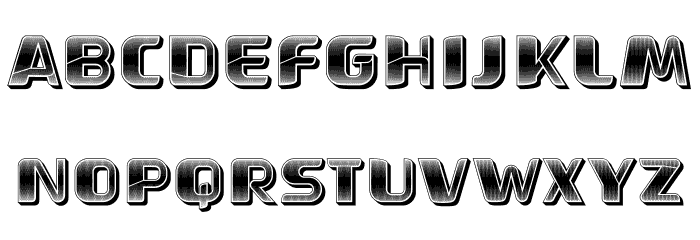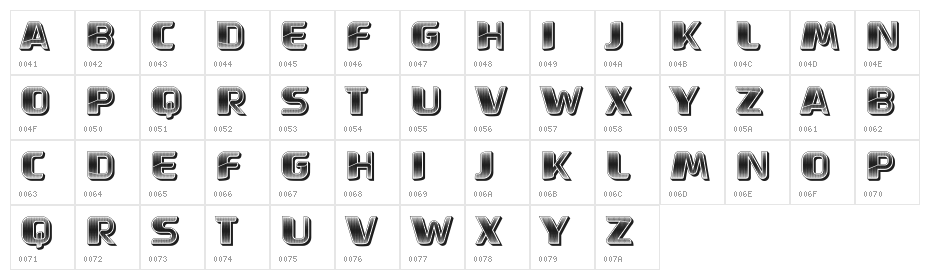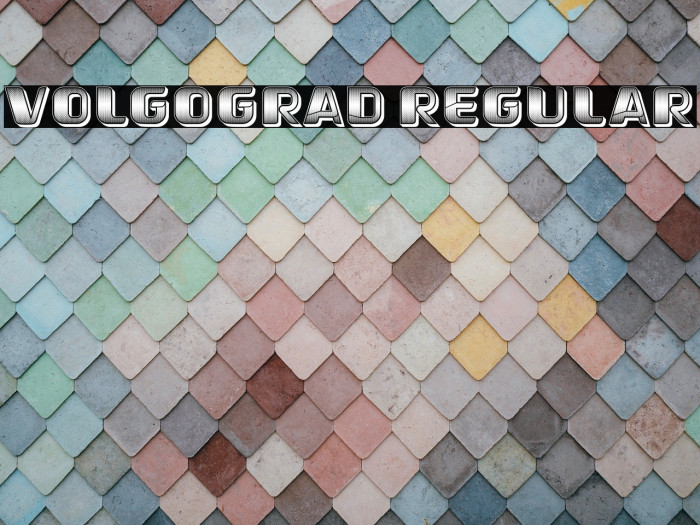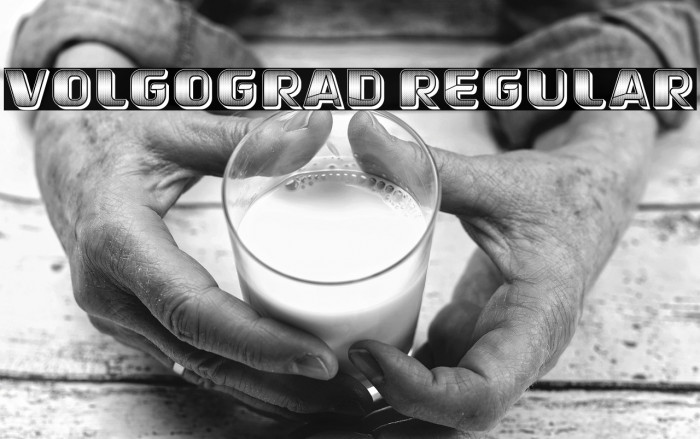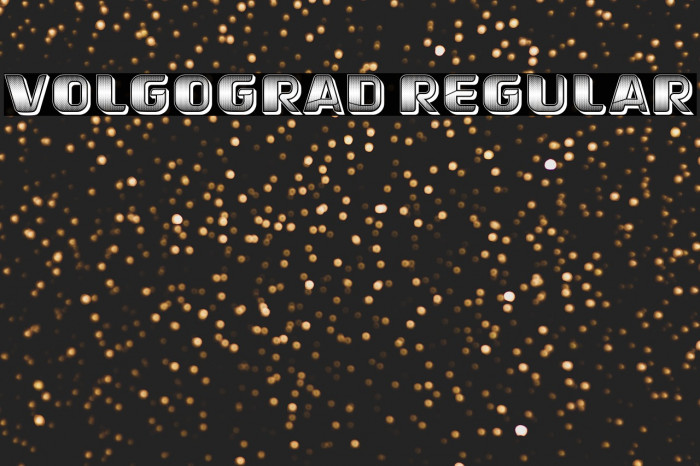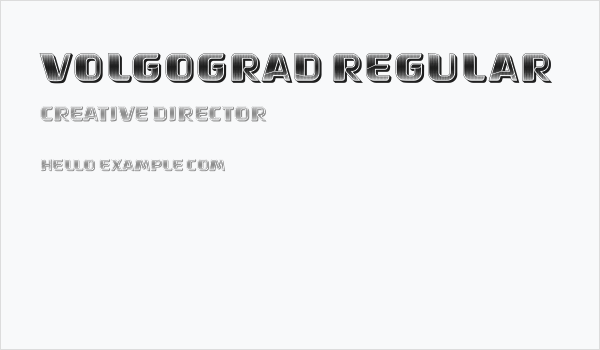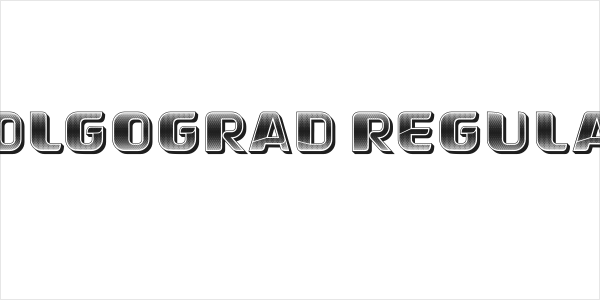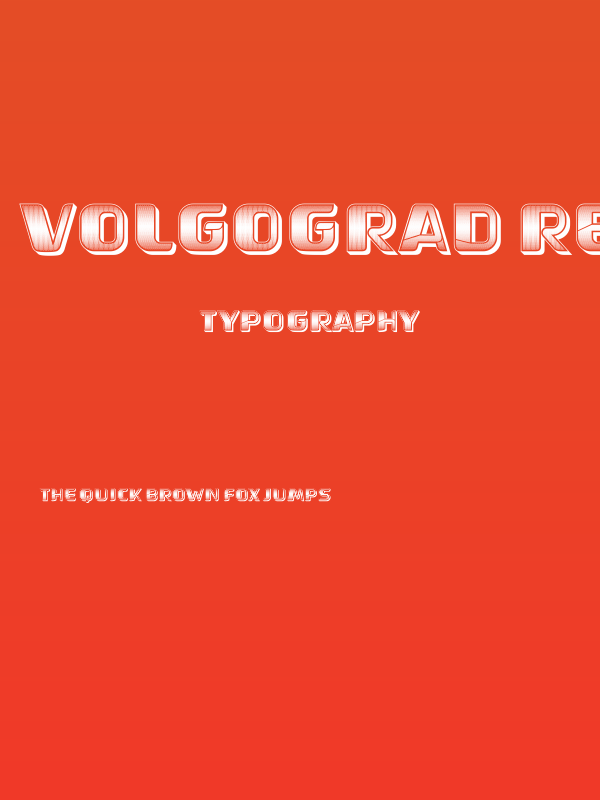
Volgograd Regular Font
This font features a bold, three-dimensional appearance with a distinct shadow effect that gives it a sense of depth and dynamism. The characters are uppercase and have a geometric, block-like structure with rounded edges, adding a modern and futuristic feel. The shading within each letter enhances the visual impact, making it stand out in any design. The font's style is reminiscent of retro-futuristic aesthetics, combining elements of vintage and modern design. Its unique look makes it suitable for eye-catching headlines and titles.
A bold, 3D geometric font with a retro-futuristic style and shadow effects.
- Font: Volgograd Regular
- Proposed Projects: Ideal for use in posters, logos, video game graphics, and any project requiring a striking, modern typeface.
- Overall Style: Retro-Futuristic